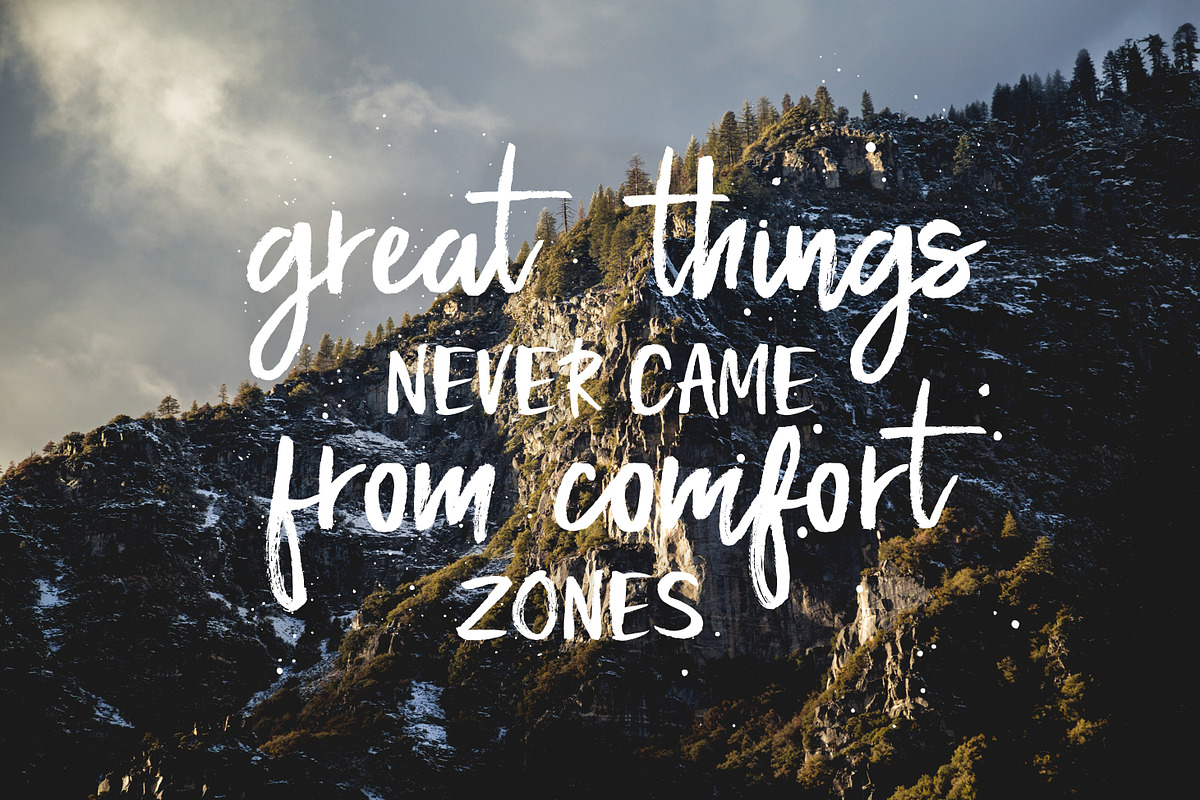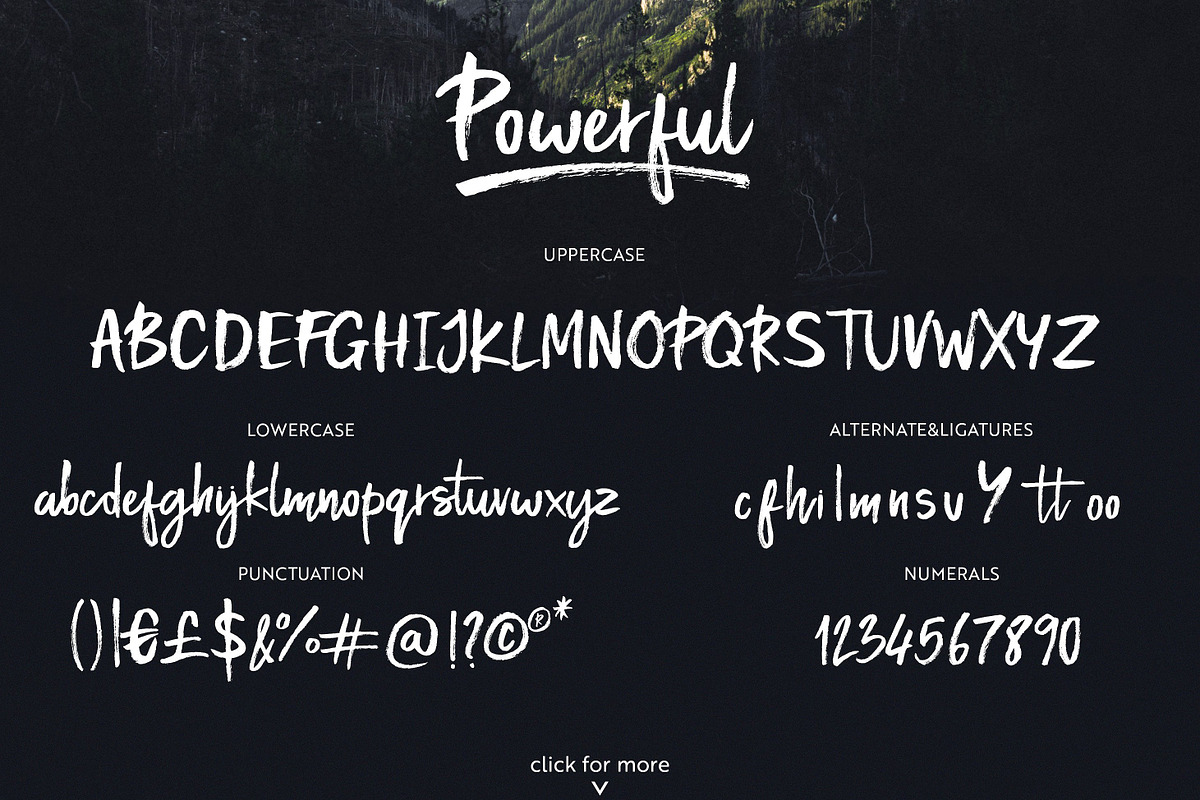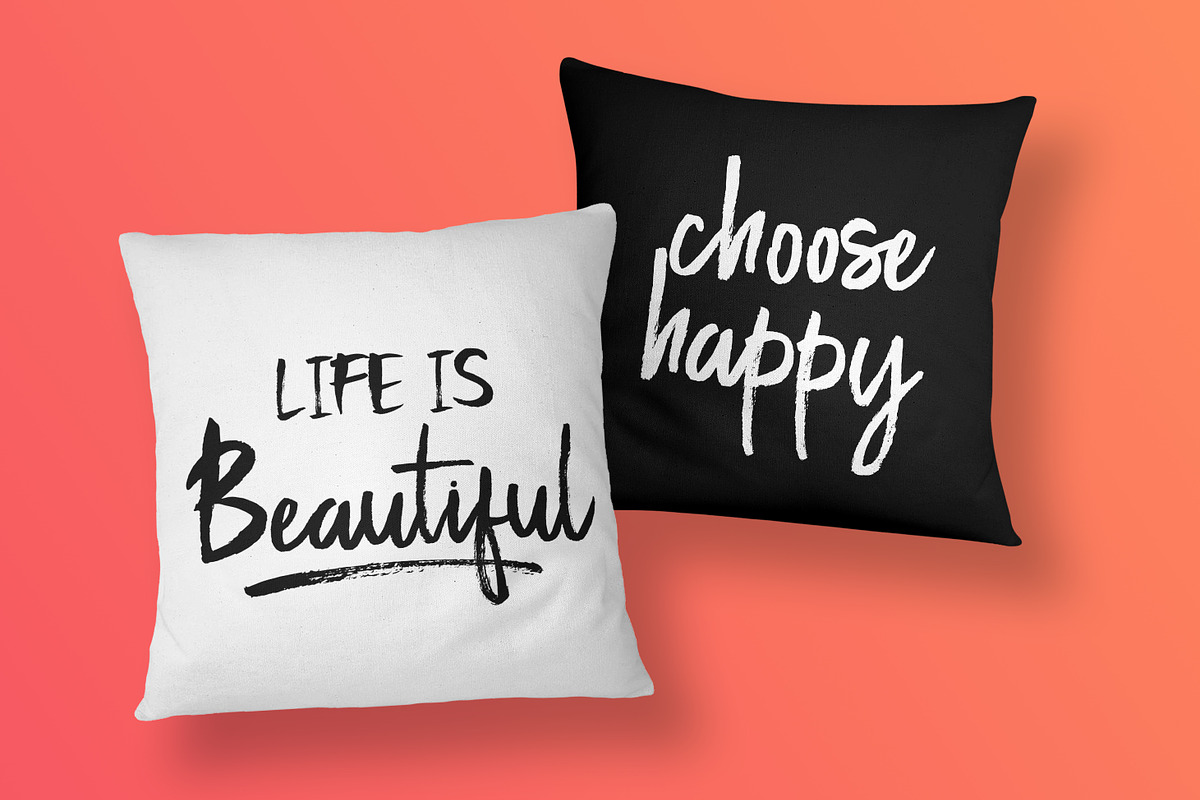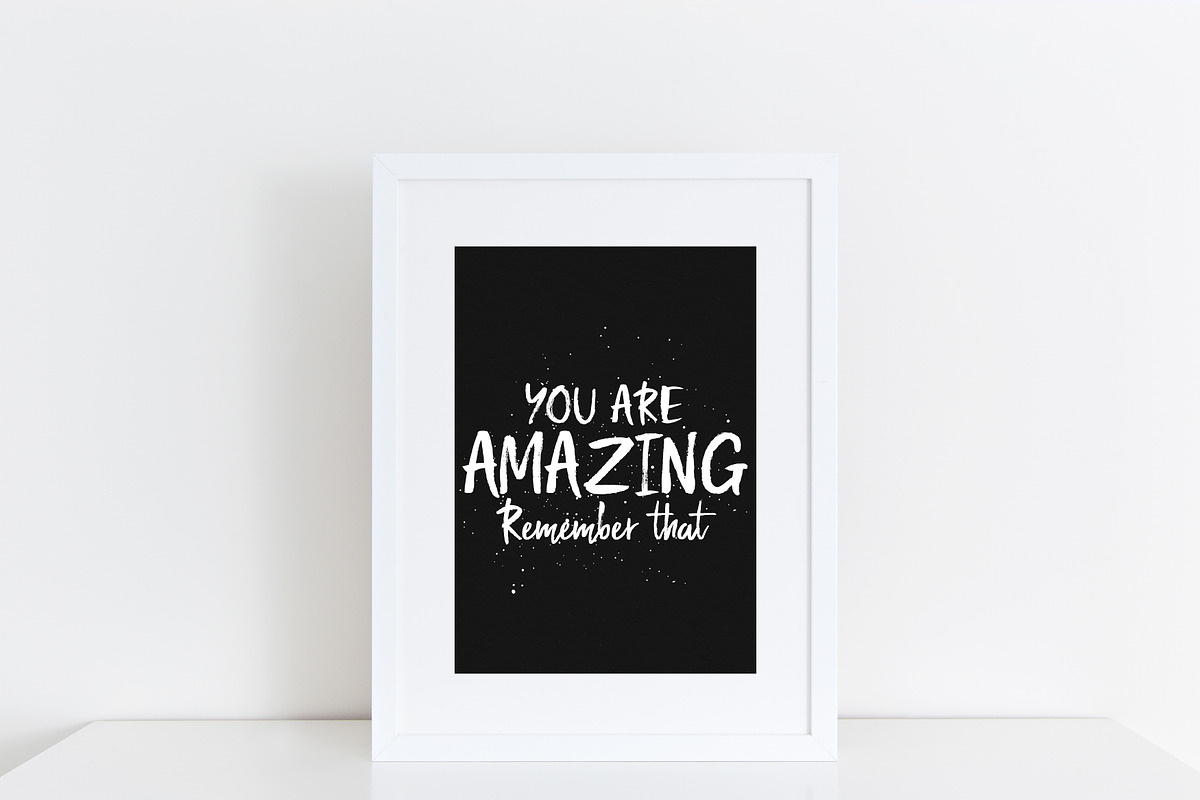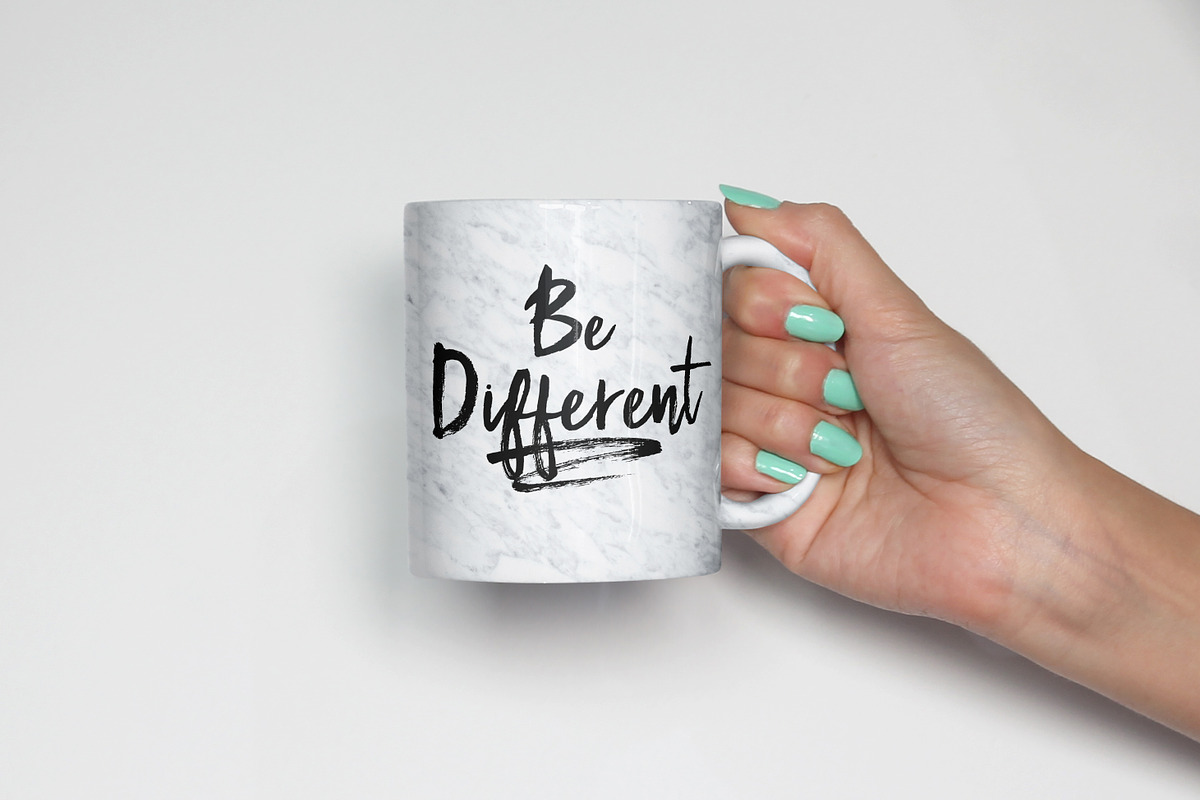
Powerful | Brush font
Powerful | Brush font by Studio&Story is a font selected for branding, posters, packaging, typography.
- Powerful Brush Includes: Powerful-comes as a single font Stylistic full set of lower & uppercase letters, numerals, punctuation this font co
Powerful | Brush font by Studio&Story fits naturally into Branding, posters, packaging, typography.